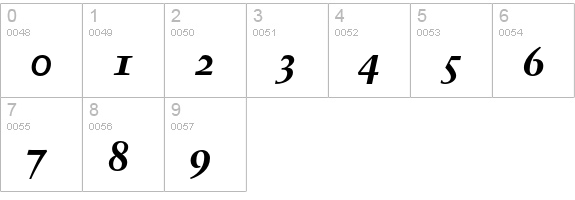
Trump Mediaeval Bold Italic Old Style Figures Font Details
Trump Mediaeval Bold Italic Old Style Figures is a strong, high-contrast, italic variant in the Trump typeface family \xE2\x80\x94 well suited to headlines, attention-grabbing titles, and strong calls-to-action.
Introducing Trump Mediaeval Bold Italic Old Style Figures, a visually striking and versatile font that effortlessly combines the boldness of the Trump Mediaeval typeface with the elegance of italicized characters. This font is a true masterpiece, designed to captivate and engage readers with its unique blend of traditional and contemporary aesthetics. With its bold weight and italic styling, Trump Mediaeval Bold Italic Old Style Figures exudes a commanding presence on any page. The intricate detailing of each character showcases the meticulous craftsmanship behind this font, while the old-style figures add a touch of vintage charm and sophistication. This font is perfect for a wide range of design projects, from editorial layouts and branding materials to advertisements and signage. Its versatility allows it to adapt to various themes and styles, making it an ideal choice for both formal and creative contexts. But what truly sets Trump Mediaeval Bold Italic Old Style Figures apart is that it is available for free! Yes, you heard it right. This remarkable font can be freely downloaded at FontsMarket.com, allowing designers and enthusiasts alike to access its beauty and functionality without any cost. So why wait? Embark on your design journey and unleash the power of Trump Mediaeval Bold Italic Old Style Figures. Download it for free today at FontsMarket.com and experience the magic of this extraordinary font firsthand.